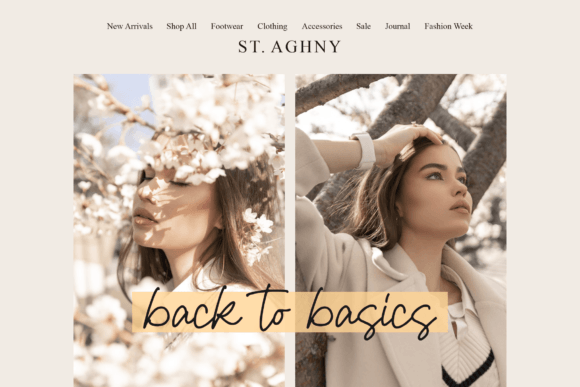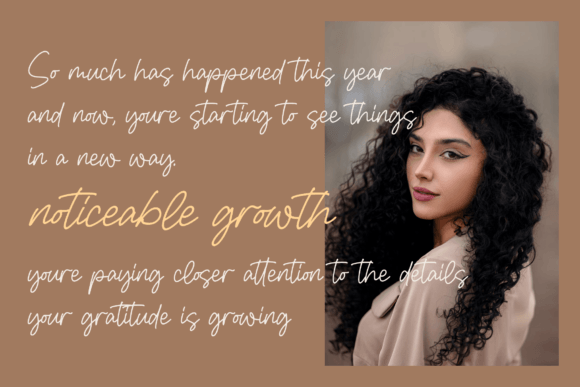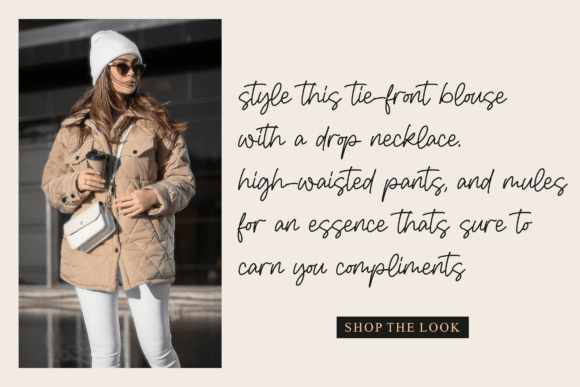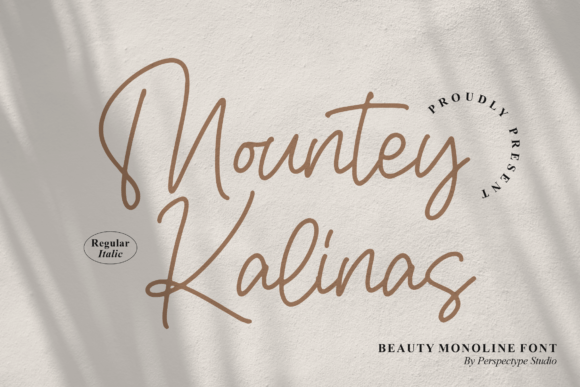
Introduction to Mountey Kalinas Font
Mountey Kalinas is an exclusive handwritten font with a contemporary atmosphere and impeccable form.
Not too thin and not too thick, balanced and varied, this font was designed to enhance the beauty of your projects This font will be ideal for writing wedding invitations, cards or any other design that may need a romantic, personalized touch.